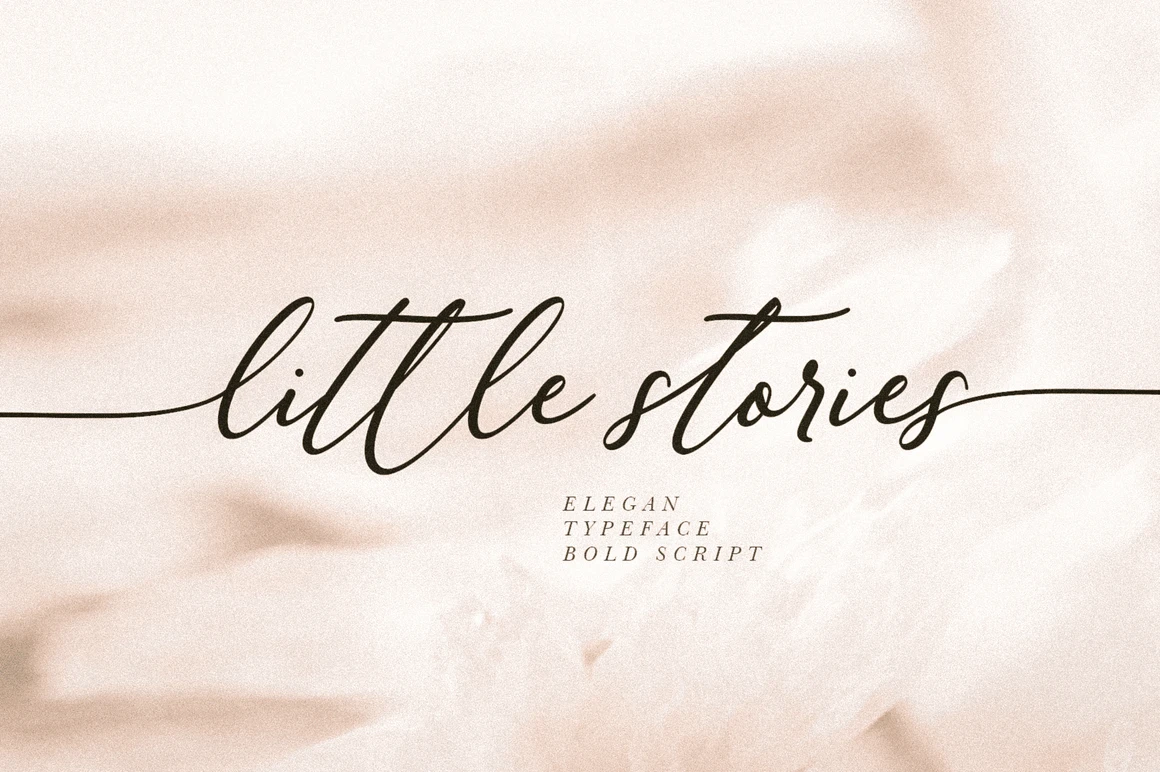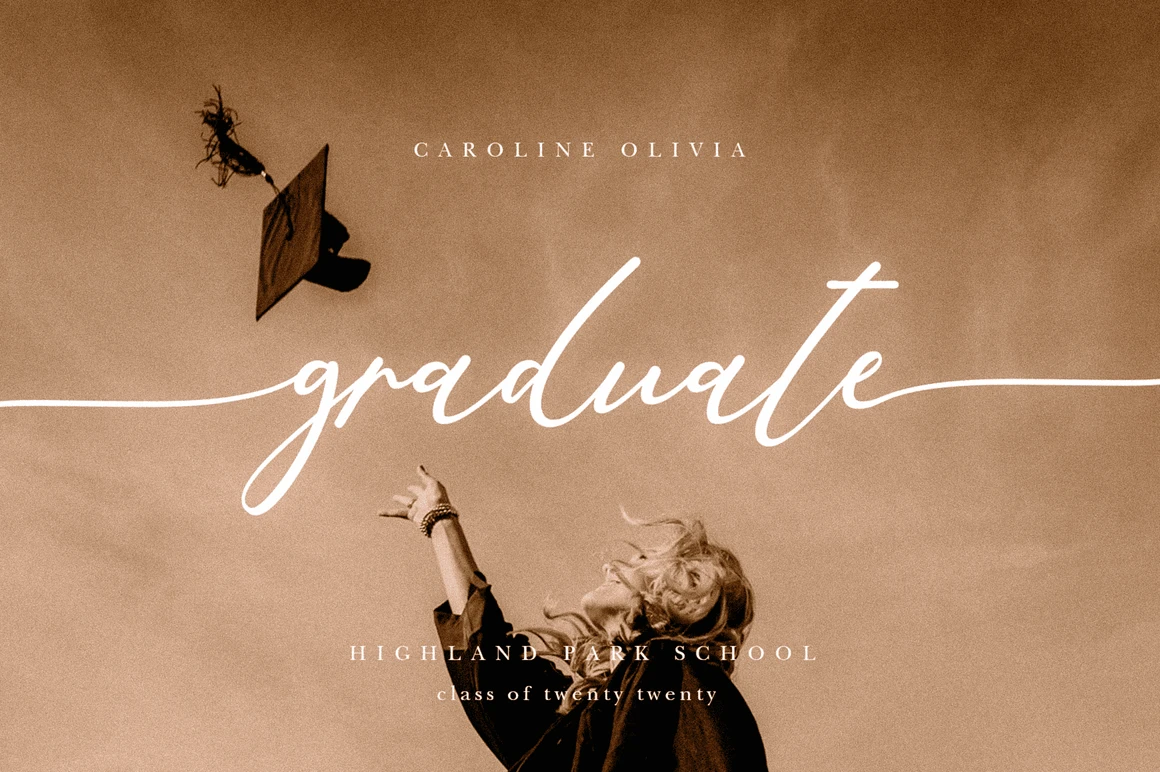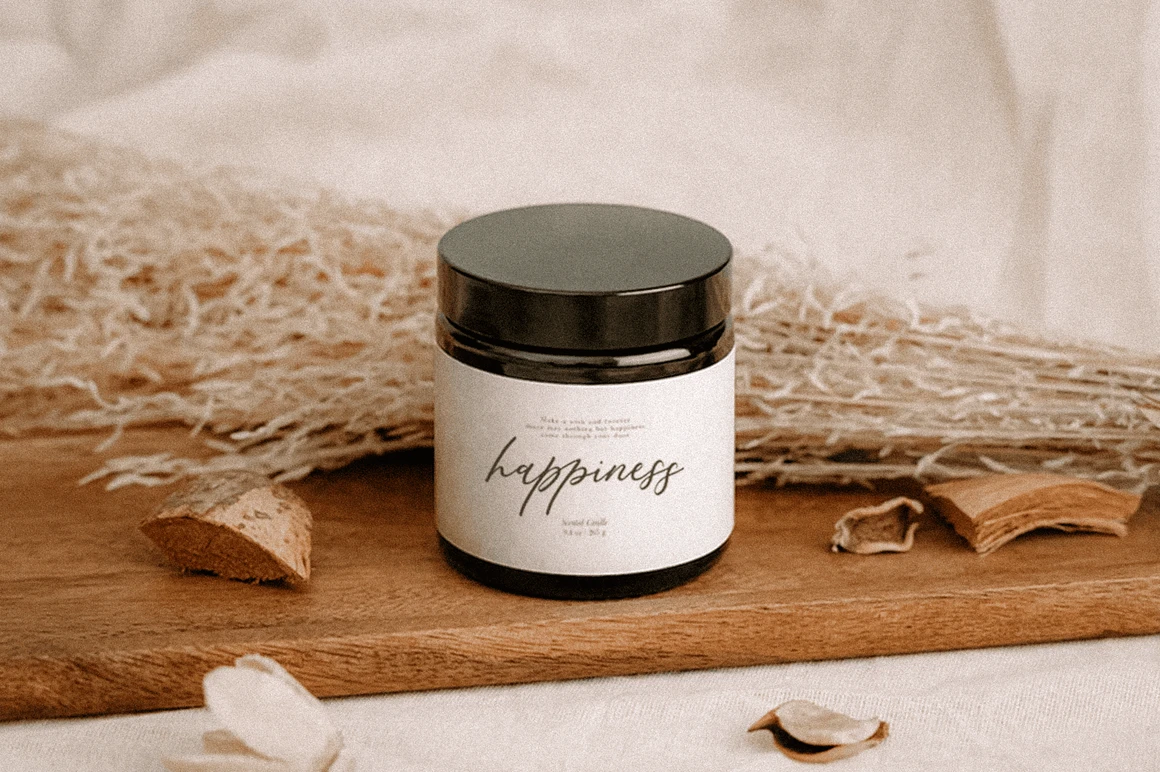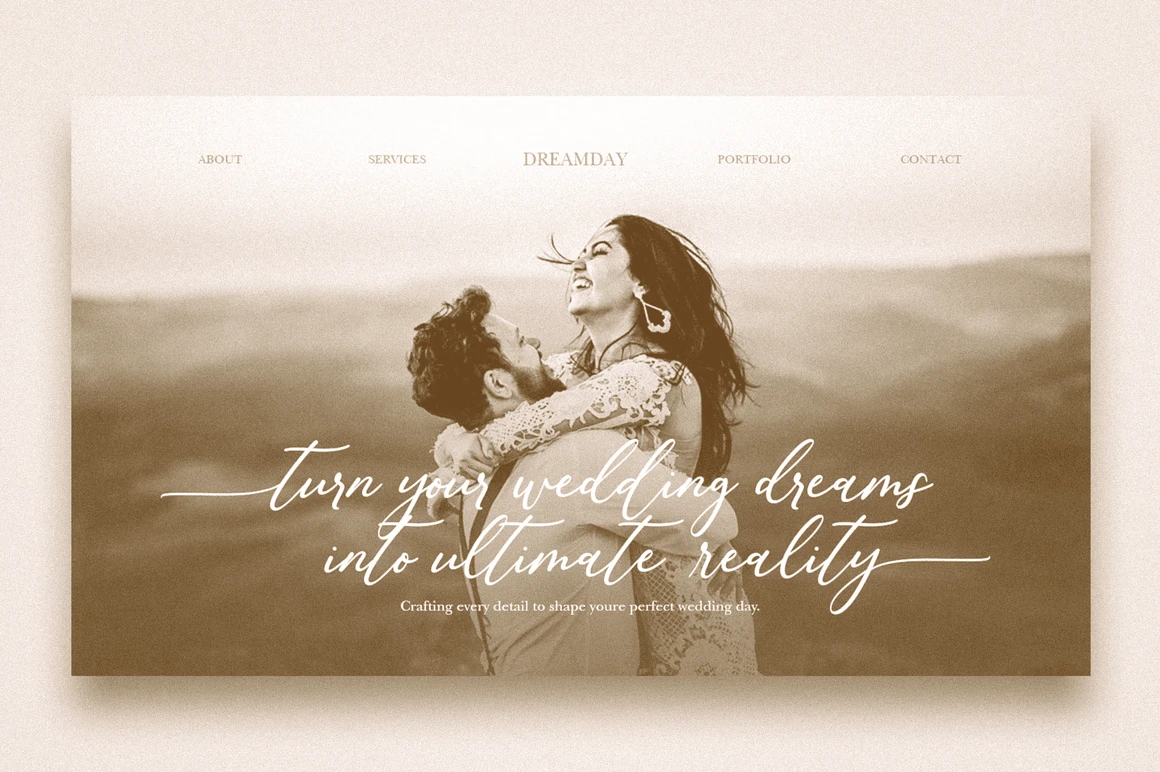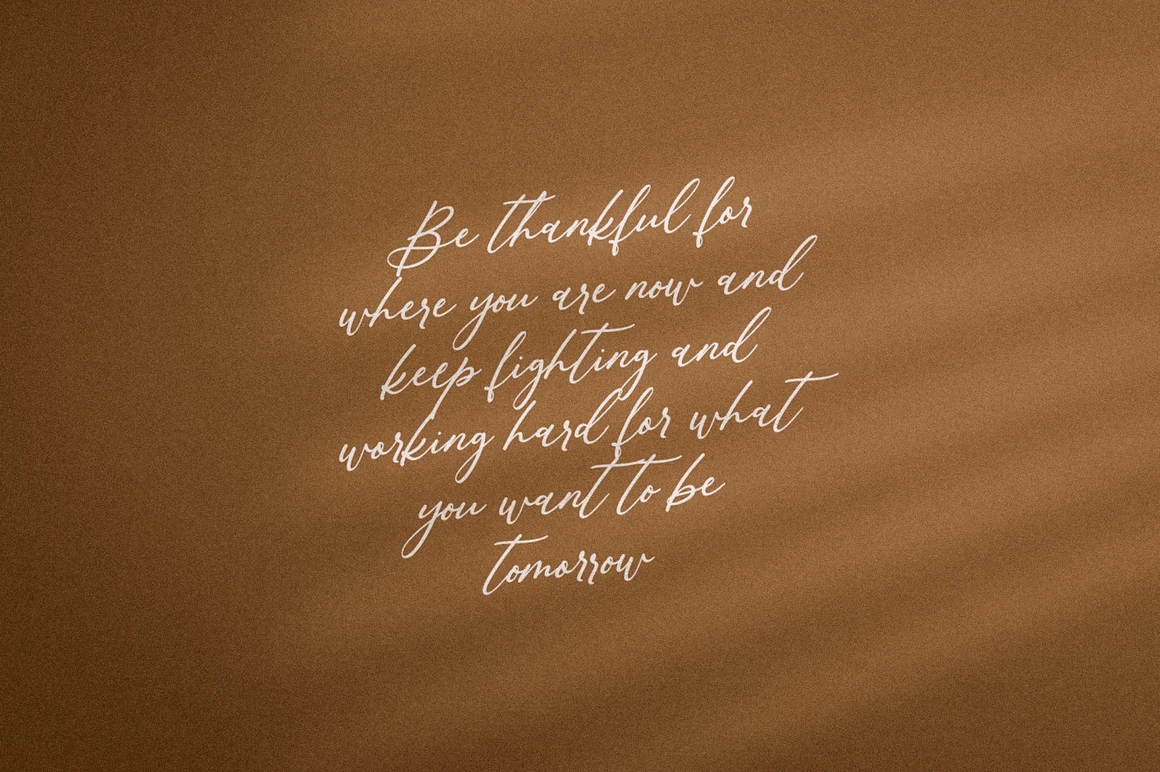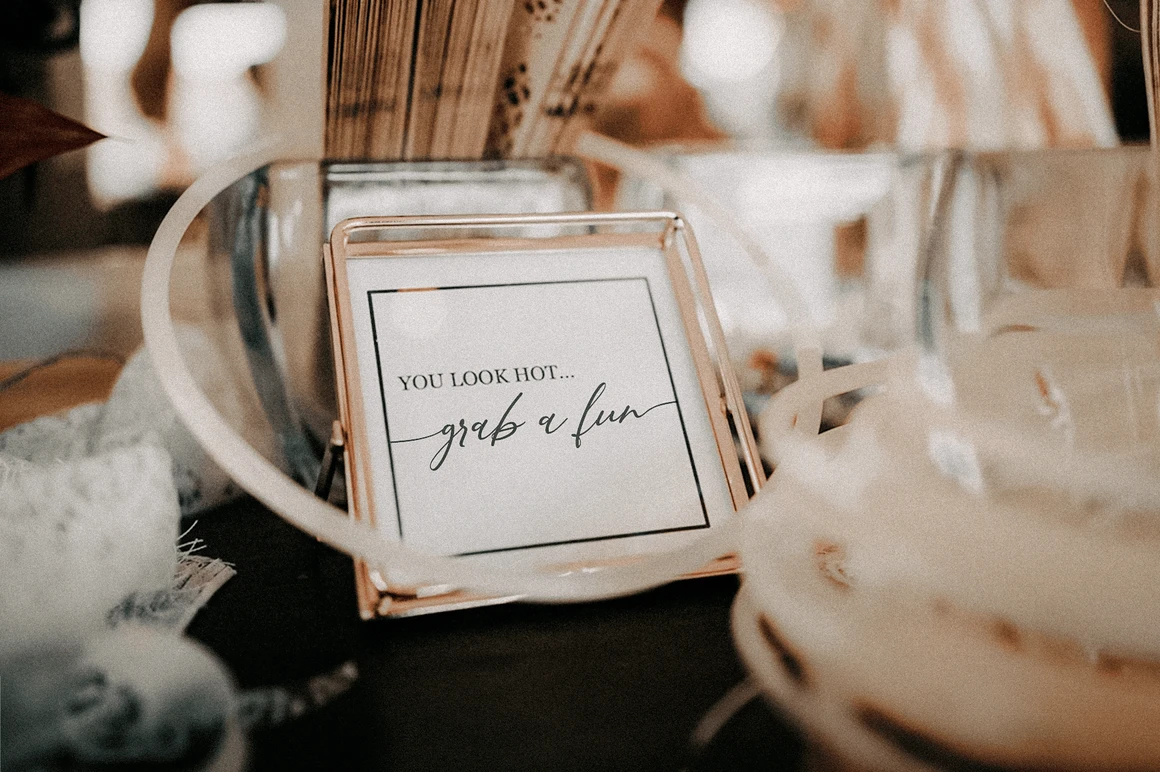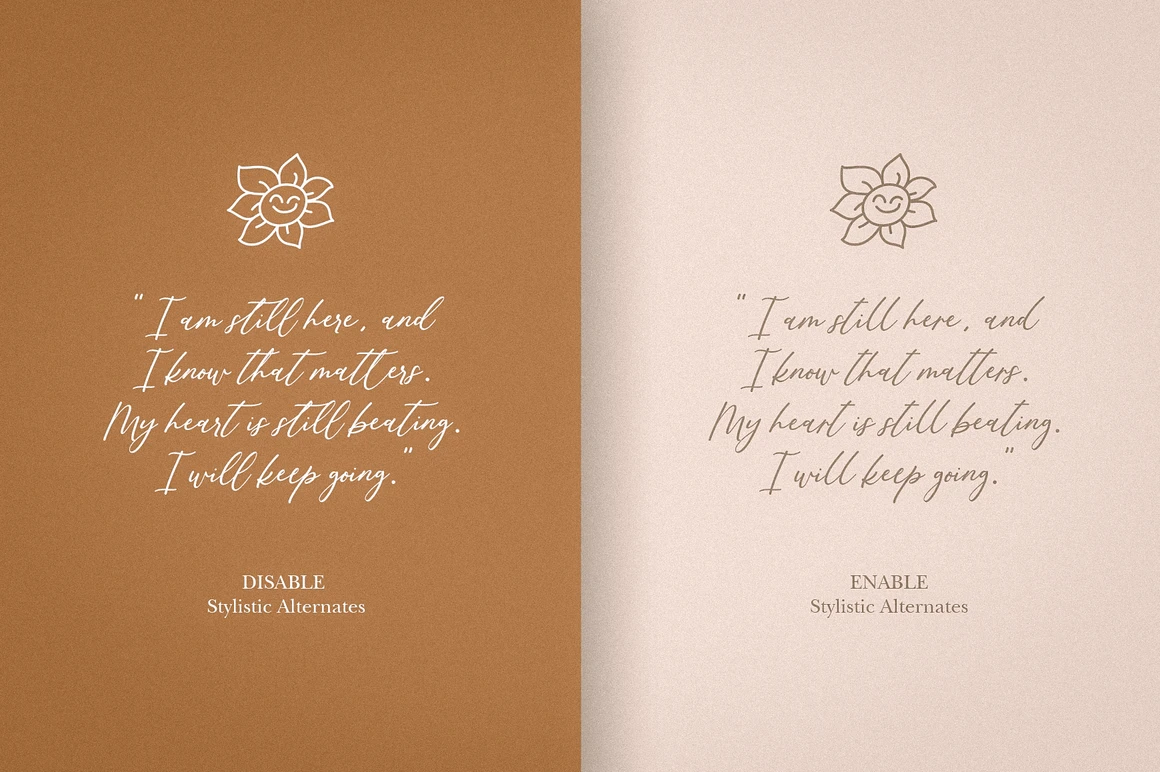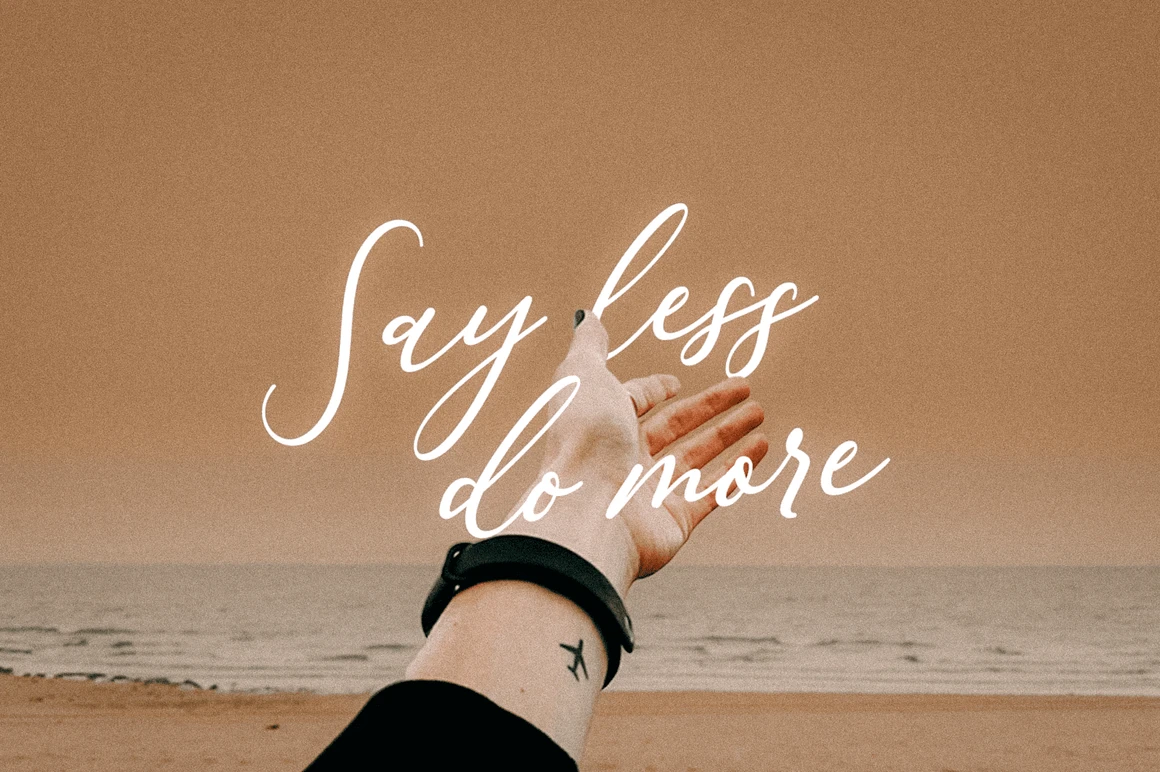
Little Stories is a cute script font. Its authentic look will add a personal and realistic feel to your designs. Use this font for your favourite projects and explore its endless possibilities.
Honestly it works perfectly for headlines, logos, posters, packaging, T-shirts and much more.